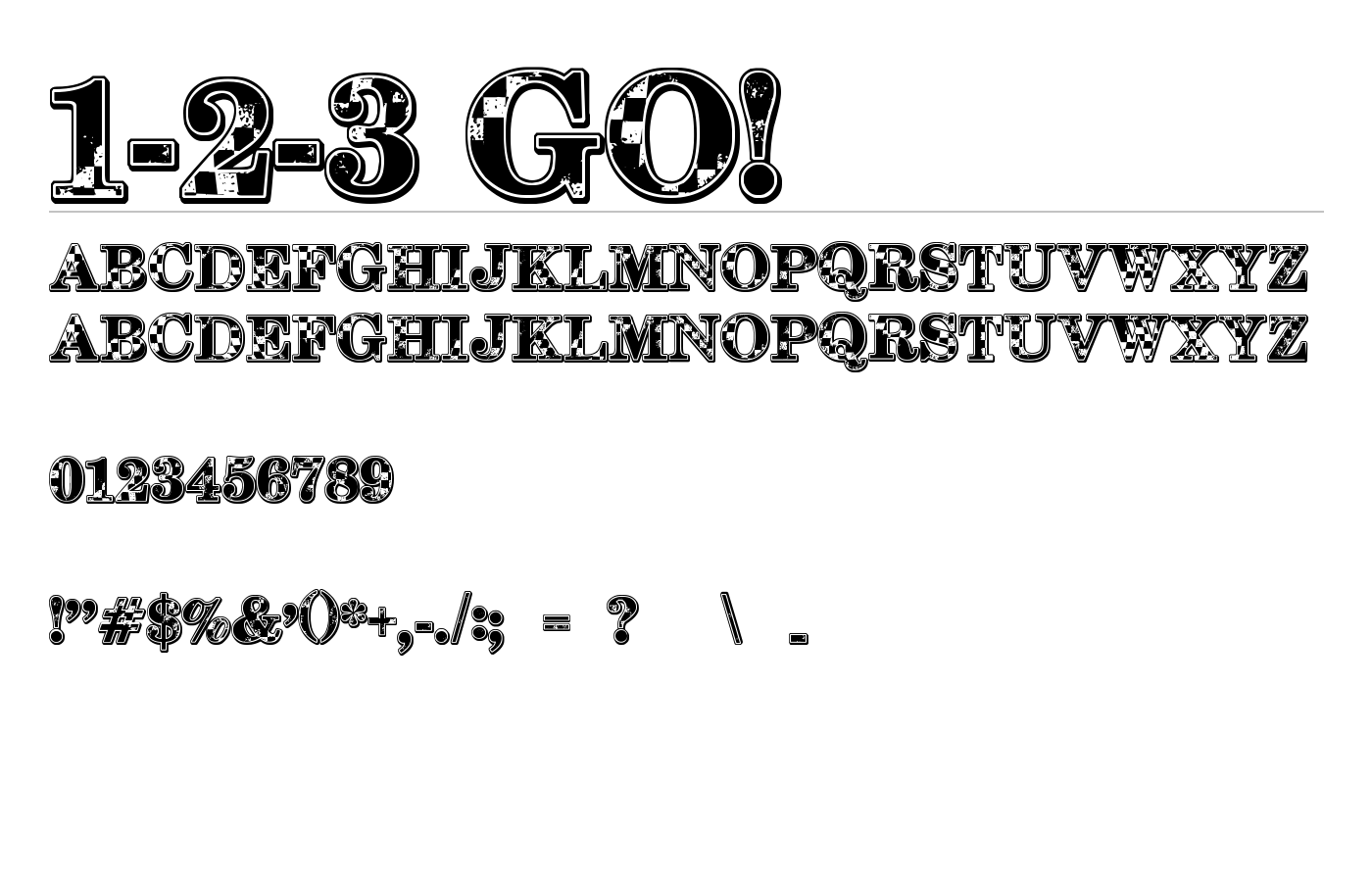
1-2-3 GO! is a bold slab serif font characterized by its thick, blocky letterforms with a distressed, grunge texture that adds a rugged, vintage feel. Its strong, high-contrast strokes and decorative imperfections make it ideal for attention-grabbing headlines, posters, and branding that seek to convey energy and a retro-industrial style. This font works best in designs that want to evoke a playful yet bold impression with a touch of nostalgic charm.
1-2-3 GO! Font
About 1-2-3 GO! Font
| Font family | 1-2-3 GO! Font |
| Designer | Jonathan Paquette |